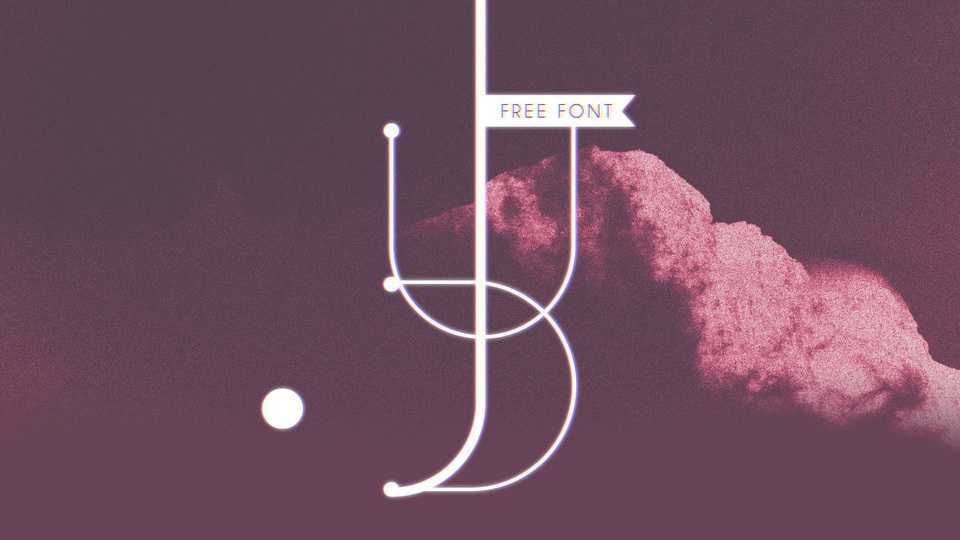
Download JUD font, a clean minimal typeface with a futuristic impression. JUD font is perfect editorial and publishing, logos and branding, movie posters and games.
Designer: Chokun Choinw